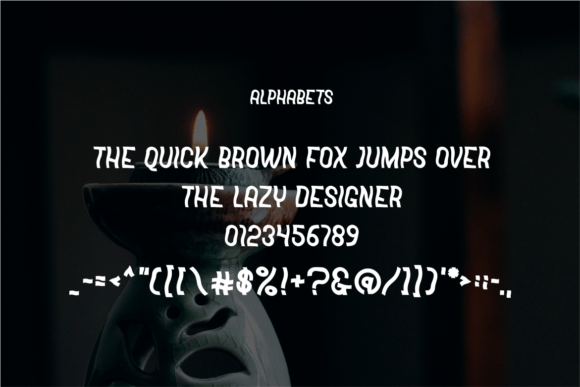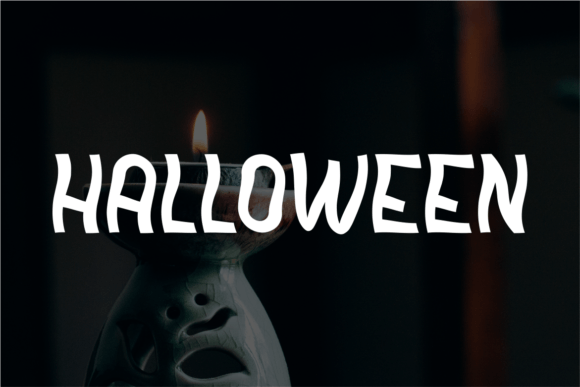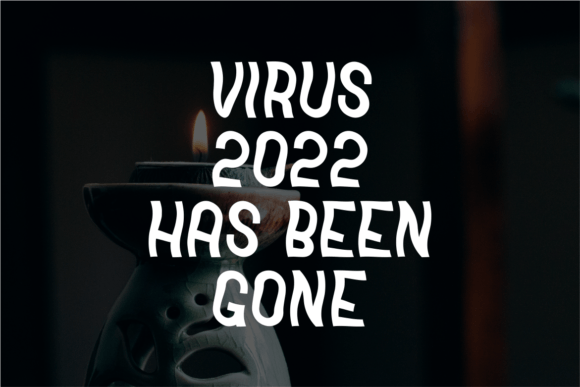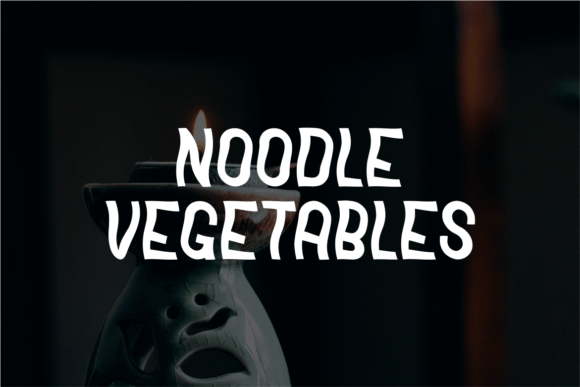
The Magic of Fhoster Font: A Designer’s New Best Friend
I’ll never forget the time I was working on a project for a beachside resort, and I just couldn’t find the right font to capture the laid-back, wave-like vibe I was going for. My client was getting impatient, and I was on the verge of a design crisis. That’s when I stumbled upon Fhoster Font, and let me tell you, it was love at first sight! 💫
What Makes Fhoster Font So Special?
Fhoster is a wavy display font that combines bold sans serif elements with water-like curves, creating a beautiful and harmonious visual effect. This font is incredibly versatile and can be used in almost any line of business, from surf schools to luxury brands. The unique blend of modern and organic elements makes Fhoster a standout in any design project.
An Honest Review of Fhoster Font
- Unique and eye-catching design that adds a touch of personality to any project ✅
- Highly versatile and adaptable to various design styles and industries 🌈
- Excellent for headlines, titles, and promotional materials 📣
- Works well in both digital and print formats 📊
- May not be the best choice for body text or long paragraphs due to its bold and wavy nature ⚠️
- Some users may find the font a bit too attention-grabbing for certain projects 🤯
The Backstory of Fhoster Font
Fhoster Font was designed by a team of creatives who wanted to capture the essence of ocean waves in a digital font. Inspired by the movement and flow of water, they crafted a font that would bring a touch of the sea to any design project. The result is a beautiful, harmonious font that’s perfect for making a splash in the design world! 🌊
Q: Is Fhoster Font suitable for body text?
A: While Fhoster Font is stunning for headlines and titles, it may not be the best choice for body text due to its bold and wavy nature. However, feel free to experiment and see what works best for your project!
Q: Does Fhoster Font come with OpenType features?
A: Yes, Fhoster Font includes a range of OpenType features, glyphs, and stylistic alternates to help you take your design work to the next level.